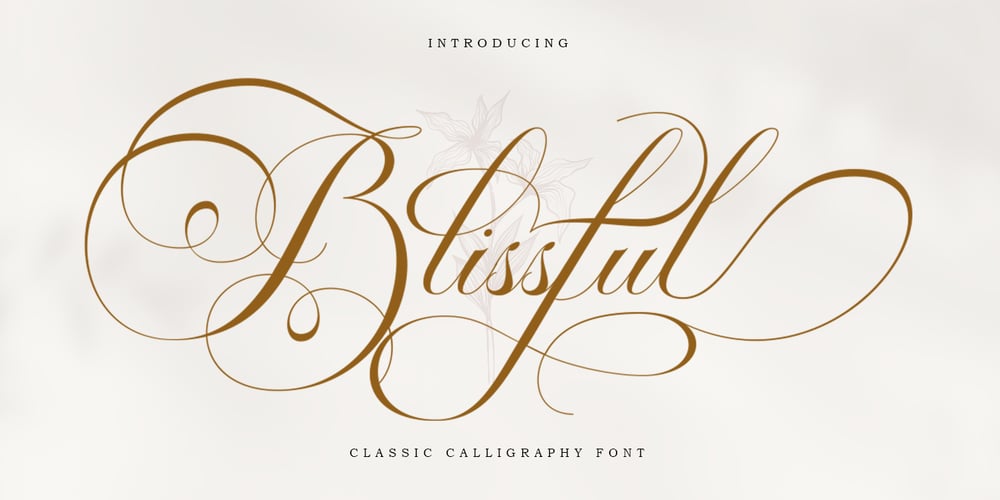
Blissful Script Font Family was designed by Romi Rahmadi and published by Romie Creative. Blissful Script contains 1 styles and family package options. Blissful Classic is a calligraphy font that comes with exquisite changing characters, a kind of classic decorative copper script with a modern touch, designed with high details to bring out the elegance of the style. Blissful Classic Calligraphy Font is attractive because the typeface is smooth, clean, feminine, sensual, glamorous, simple and very easy to read, because of the many luxurious letter connections. I also offer a number of viable style alternatives for many letters. The classic style is very suitable to be applied in various formal forms such as invitations, labels, restaurant menus, logos, fashion, make up, stationery, novels, magazines, books, greeting/wedding cards, packaging, labels or all kinds of advertising purposes. .Blissful Classic Calligraphy Font is encoded with Unicode PUA, which allows full access to all additional characters without having to have special design software. Mac users can use Font Book, and Windows users can use Character Map to view and copy any of the additional characters to paste into your favorite text editor/application.If you need help or have any questions, let me know. I’m happy to help.Thank you & Happy Designing!